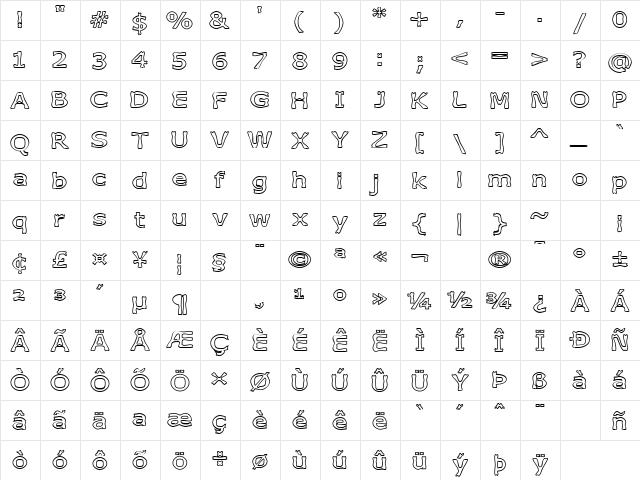
Boneribbon Outline Regular
Design Context for Boneribbon Outline Typeface
Boneribbon Outline is built around its visual character rather than neutral utility — its distinctive forms are designed to make an impression at display sizes.
Font Pairing: Pair with a clean neutral sans-serif for body copy to let Boneribbon Outline's character lead without overwhelming the composition.
Pro Tip: Treat Boneribbon Outline as the centrepiece of your typographic hierarchy. One strong heading set in a decorative face can carry an entire layout.